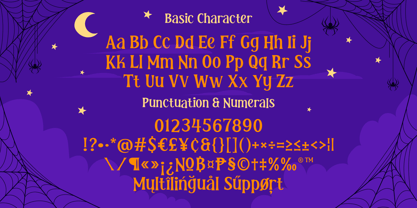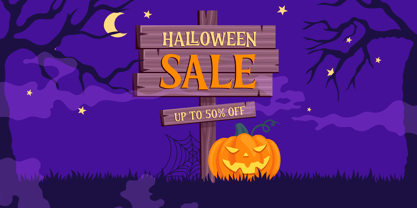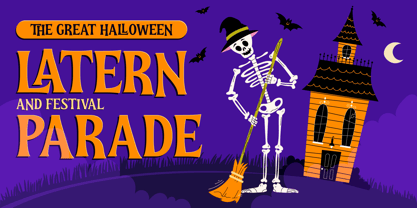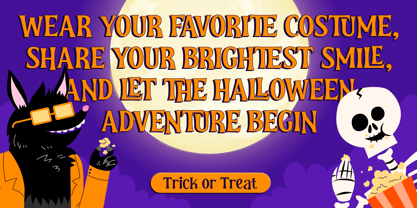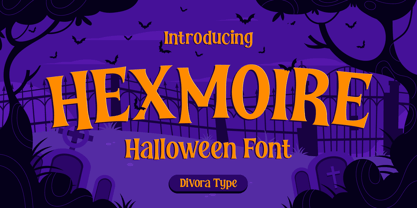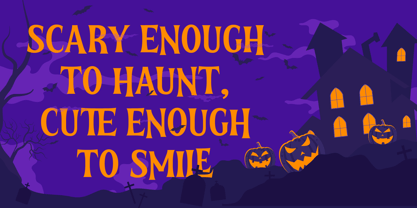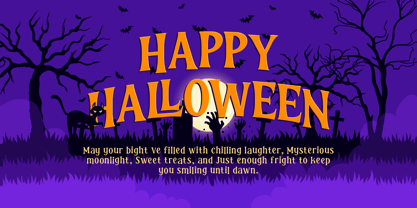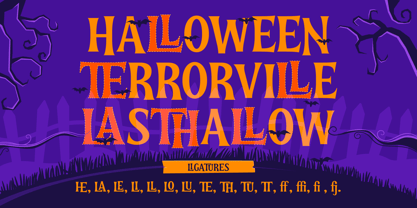
Hexmoire
by Divora Type
The Hexmoire Font Family was designed by Dhian Tri Antono and published by Divora Type. Hexmoire contains 1 styles. More about this family
Hexmoire
Hexmoire is a whimsical Halloween display font that blends enchanting magic with playful spooky charm. Inspired by ancient spellbooks, mystical rituals, and the cozy spirit of Halloween, this typeface captures the perfect balance between eerie elegance and delightful fantasy.
Designed with bold, handcrafted letterforms and expressive details, Hexmoire is perfect for creating eye-catching designs that celebrate the magical side of the spooky season. Whether you're designing Halloween party invitations, seasonal branding, book covers, posters, packaging, apparel, or social media graphics, Hexmoire brings a mysterious yet charming atmosphere to every project.
Its distinctive style makes every word feel magical, memorable, and full of personality while remaining highly readable for headlines, logos, and display typography.
Features:
• Uppercase & Lowercase
• Numbers & Punctuation
• Multilingual Support
Designers: Dhian Tri Antono
Foundry: Divora Type